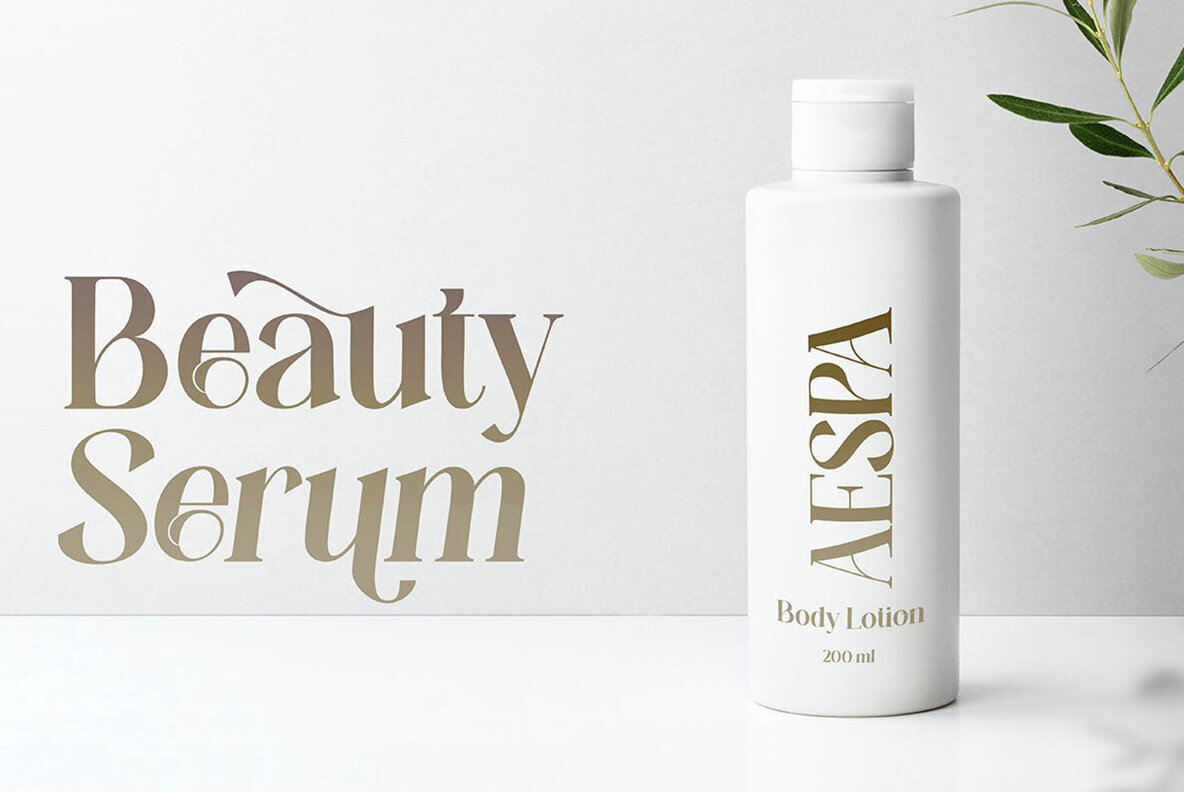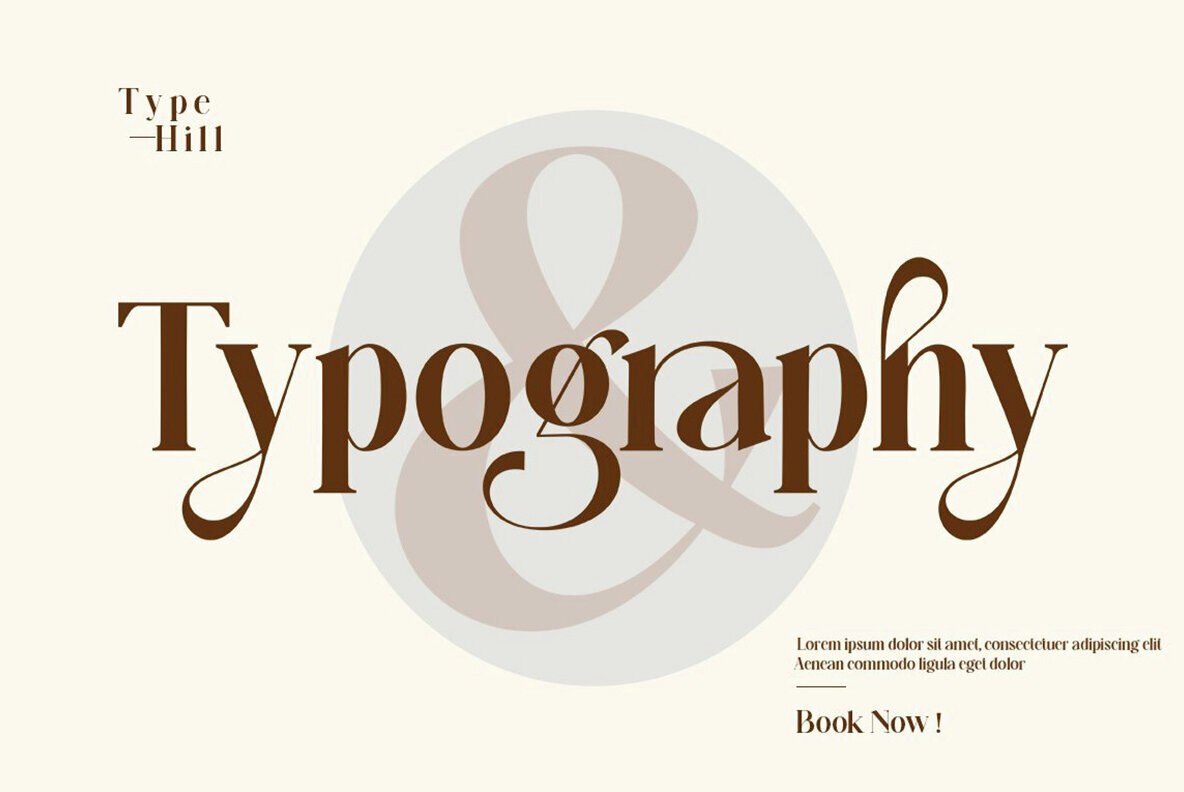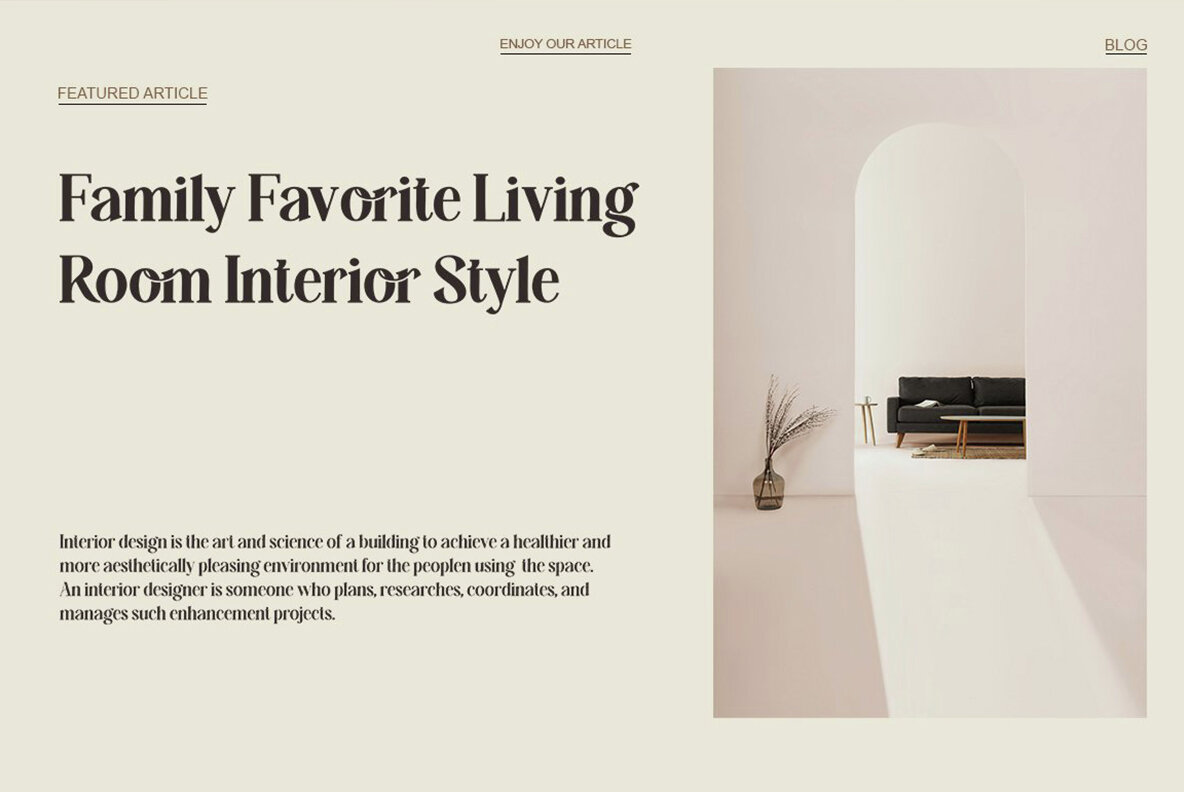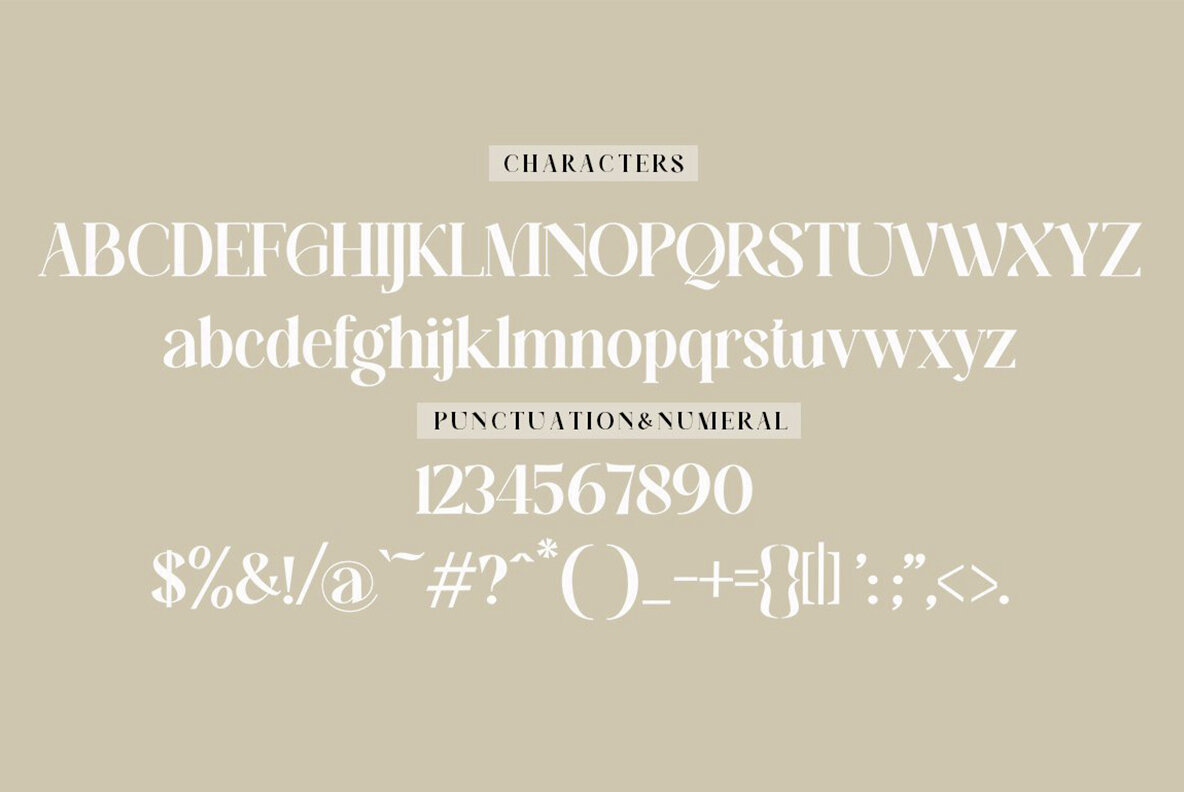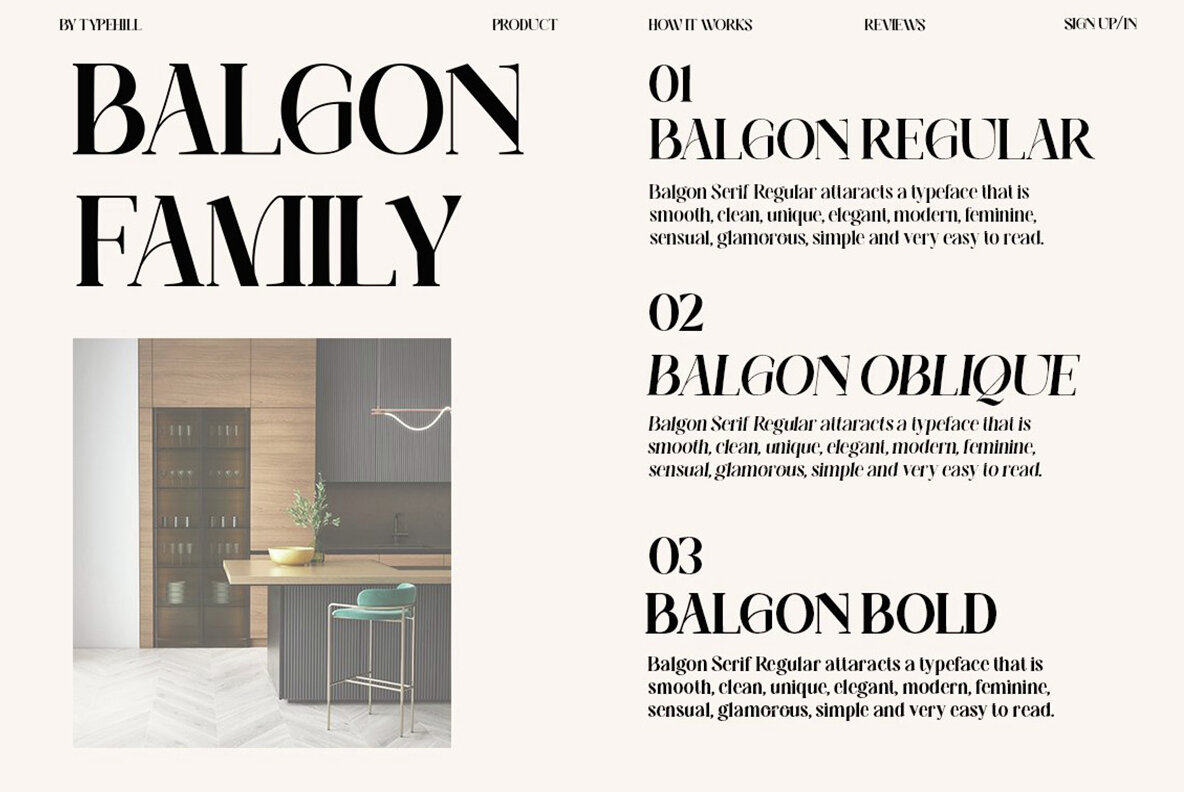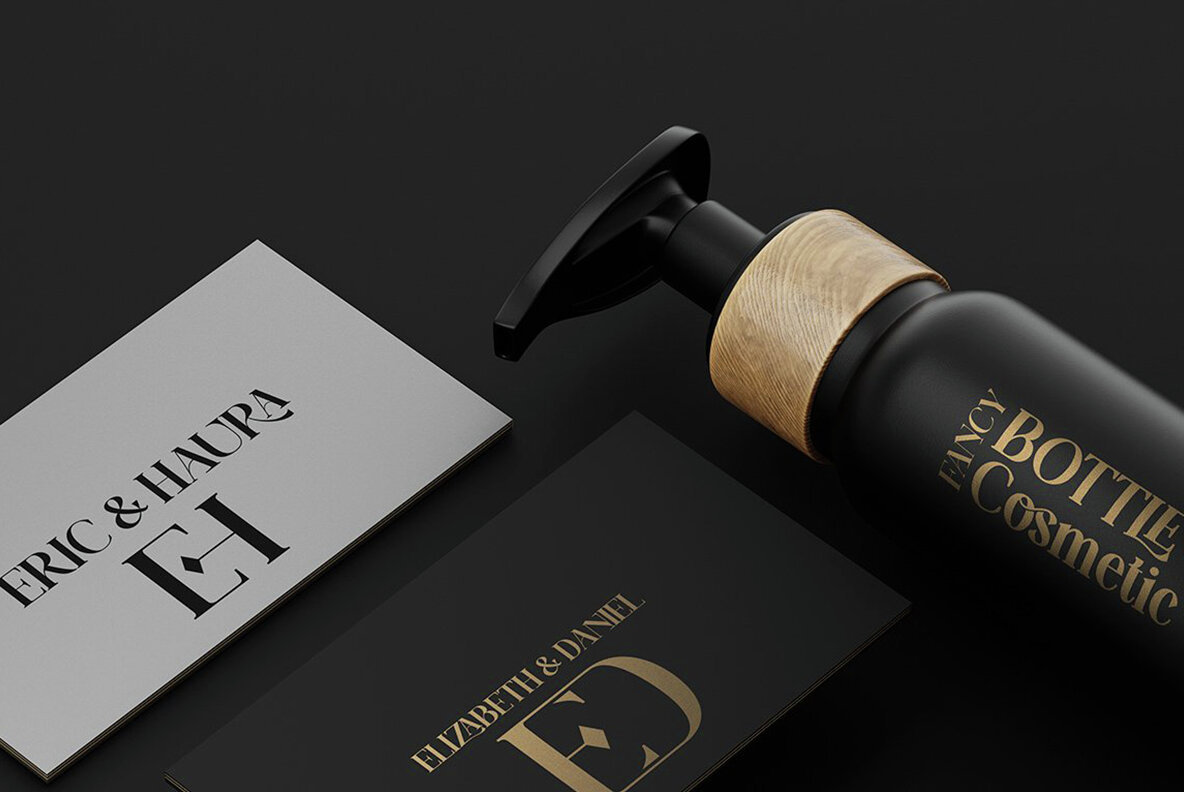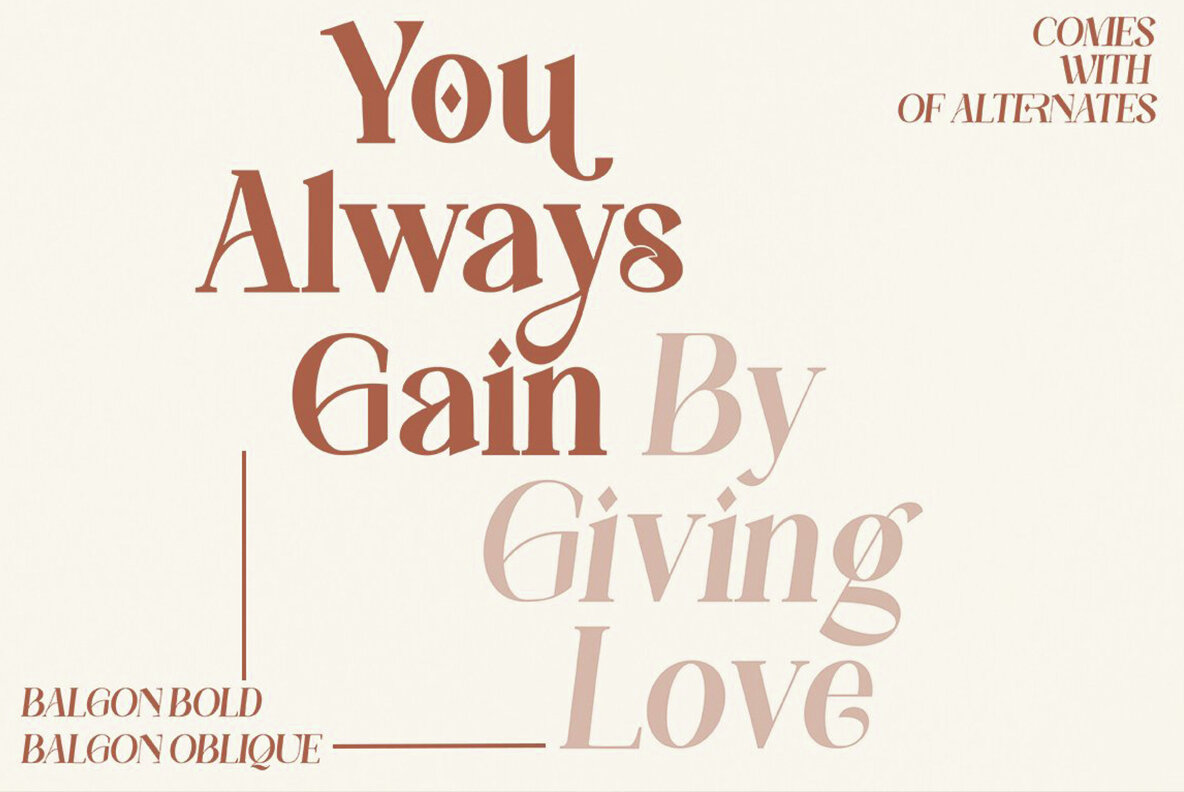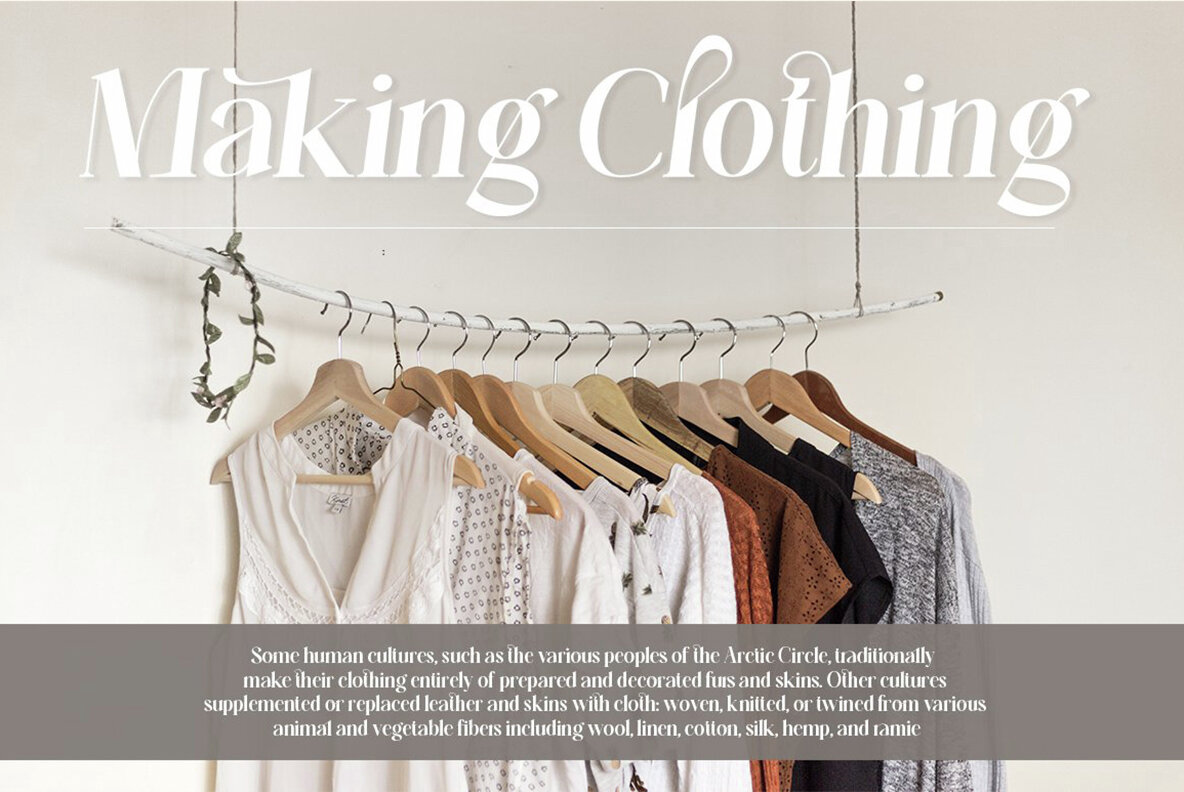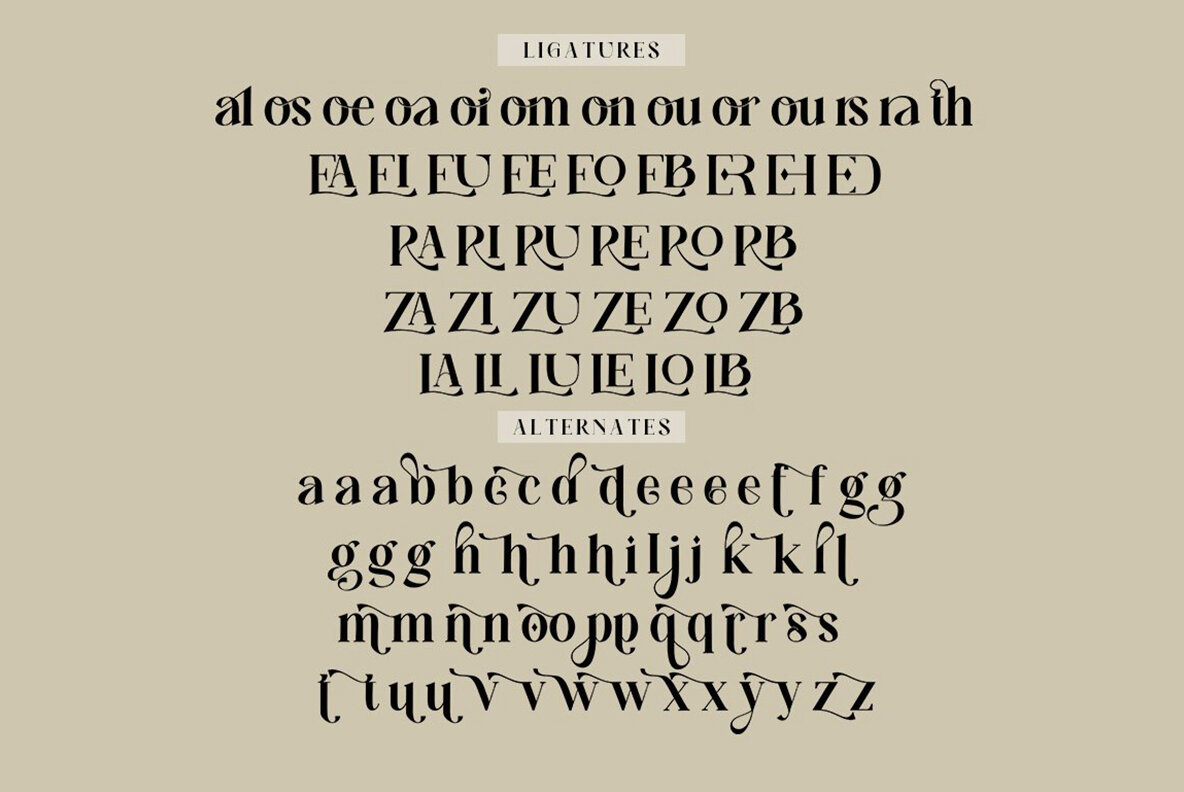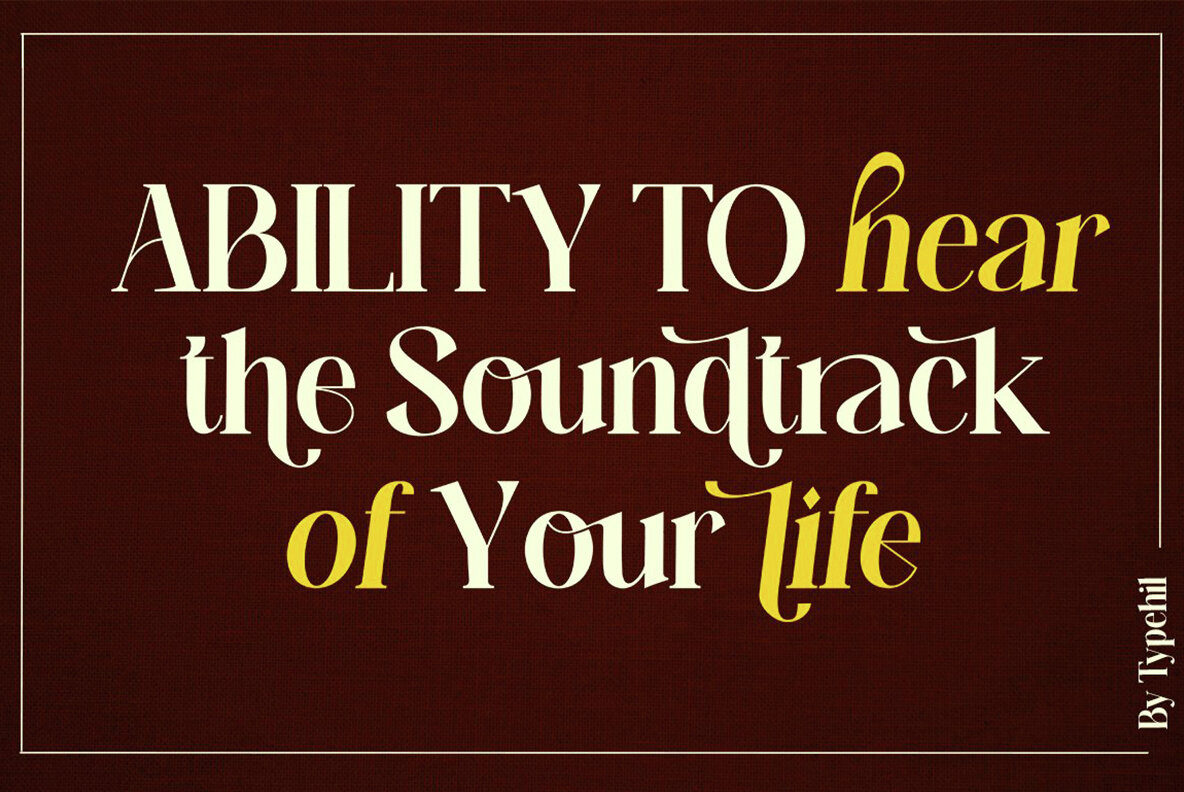
Balgon Font
Balgon Serif is a typeface that captivates with its subtle, clean, and feminine charm. It effortlessly combines glamour with simplicity, offering excellent readability. Its classic style is ideal for an array of formal applications including invitations, labels, menus, logos, fashion designs, makeup branding, stationery, letterpress, romantic novels, magazines, books, greeting and wedding cards, and packaging.Balgon Serif: Elegant and Versatile Typeface